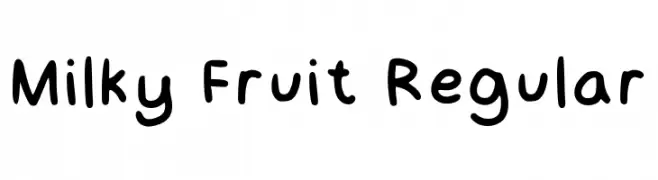
A playful and dynamic script font with a handwritten appearance.
• Milku
A playful, handwritten font with bold, rounded strokes.
• Milky White
A bold, playful script font with flowing strokes and a lively appearance.
• Milky Again
A playful, rounded font with bold strokes and a friendly, whimsical style.